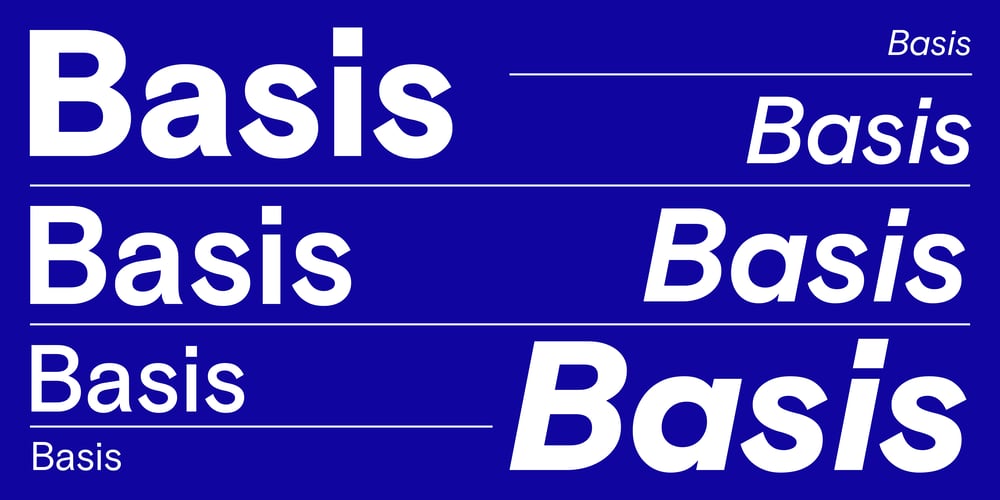
Basis Grotesque Font Family was designed by Jelle Bosma, Steve Matteson, Robin Nicholas, Colophon Foundry and published by Colophon Foundry. Basis Grotesque contains 16 styles and family package options. Initially drawn in a single Regular style for the comprehensive re-design of photography magazine Hotshoe. Basis was exhaustively refined and extended into a seven-style brood, and in-so-doing has been tested in copious iterations and sub-iterations across countless platforms, printed and otherwise.Initial points of inspiration — among them Akzidenz and various early Grotesques from Monotype — were ultimately eschewed-but-honored to create something slightly more behaved and shapely. An intentional skeletal similarity among the weights prompts an otherwise truly diverse clan of types, ranging from Light to Black.